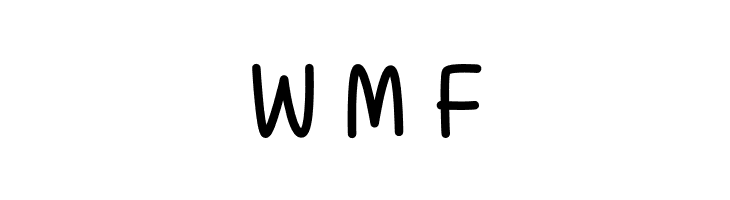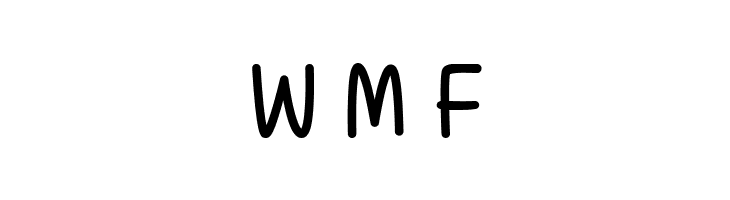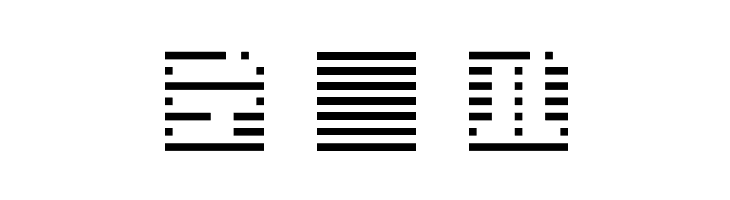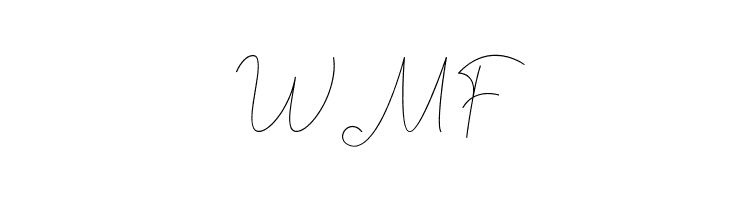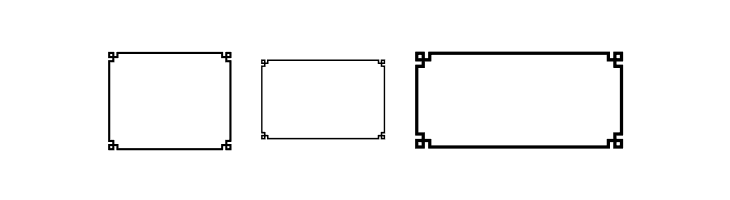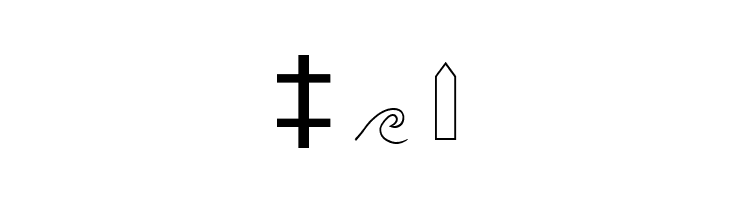
A futuristic, line-based font with a geometric and digital aesthetic.
A decorative and playful font filled with unique patterns and shapes.
Geometric, modular border and frame elements.
A playful, rounded font with a friendly and approachable style.
A playful, hand-drawn font with rounded, consistent strokes and a casual style.
A playful, handwritten font with rounded edges and consistent stroke width.
A graceful monoline script font with elegant, flowing curves.